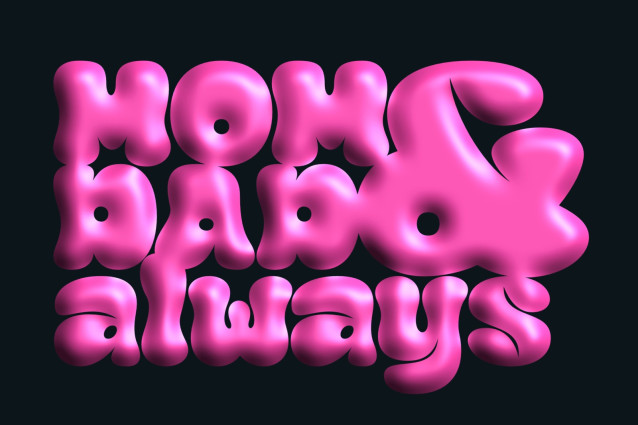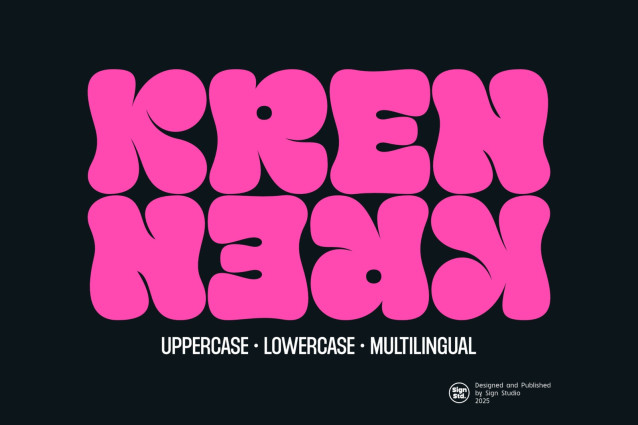
Kren Display Font
Kren Display Font is a font inspired by graffiti murals plastered on city walls. The typeface displays free expression. Its fat body gives it an adorable impression. The kerning of each character for the alphabet, numbers, and the most frequently used punctuation marks has been neatly organized. The Kren font is not only made for display, but it also supports several languages, making it flexible for communication. Readability is a top priority in every Sign Studio font because it has been the main focus since we began creating fonts. A typeface like Kren is usually suitable for posters, logos, and product branding.